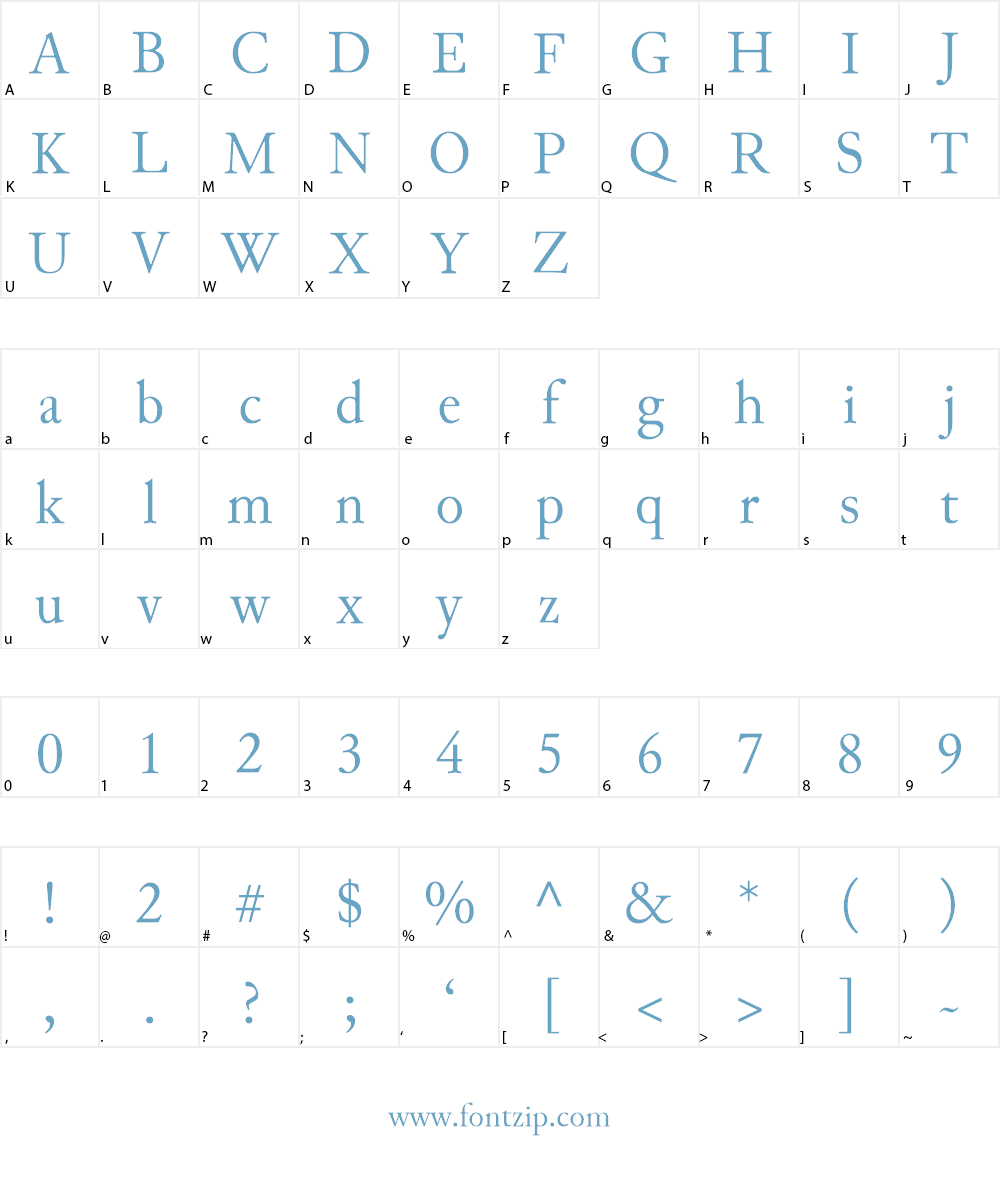
Junicode (short for Junius-Unicode) is a Unicode font for medievalists. The current version is a beta; the selection of characters and the arrangement of the Private Use Area are subject to change. Your comments, suggestions and bug reports will be a great help to me as I complete the project.
Junicode currently (as of version 0.7.2) contains 3310 characters in the regular style (the italic, bold and bold italic styles are less complete).